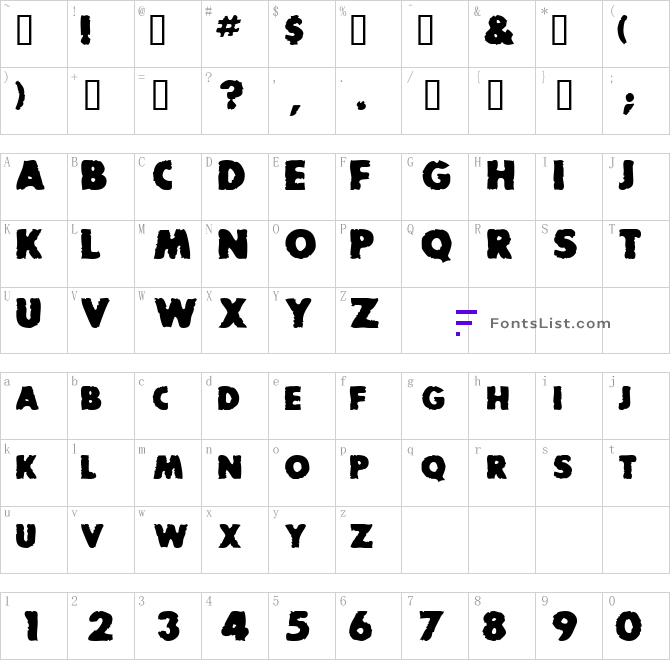
BadDogSCapsSSK-Bold.ttf is a very beautiful artistic font, BadDogSCapsSSK-Bold.ttf is widely used in the design and printing of various books and pictures,BadDogSCapsSSK-Bold.ttf has a strong visual impact,BadDogSCapsSSK-Bold.ttf is a commonly used font in newspapers, magazines and books, and is used in posters, e-commerce Poster design, store design, logo design, font design and other fields.BadDogSCapsSSK-Bold.